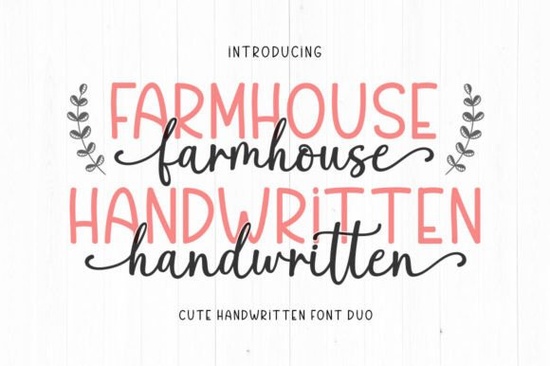
Designers, crafters, and small business owners often look for fonts that bring personality and charm to their projects. The Farmhouse Handwritten Font is a great choice for those who want a warm, inviting style that works across many applications. Whether you're creating social media posts, packaging, or branding materials, this font duo offers a smooth and elegant look that feels both modern and nostalgic.
The Farmhouse Handwritten Font comes as a duo, meaning it includes two complementary styles that pair well together. This makes it easy to create visual contrast without the need for multiple typefaces. The script style adds a personal touch, while the sans-serif version provides clarity and balance. Together, they can be used for everything from Instagram quotes to logo designs, making them versatile for a range of creative needs.
What Makes the Farmhouse Handwritten Font Unique?
This font duo stands out because of its natural, handcrafted appearance. Unlike rigid, mechanical typefaces, the Farmhouse Handwritten Font has a softness that feels more approachable. It’s perfect for projects that aim to convey a sense of warmth, authenticity, or nostalgia. Whether you’re designing for a boutique brand or creating custom greeting cards, this font can help you achieve a more personal and inviting look.
One of the key strengths of the Farmhouse Handwritten Font is its readability. Even though it has a handwritten feel, it doesn’t sacrifice clarity. This means it works well in both digital and print formats, making it a practical choice for a wide range of uses. You can use it for headings, body text, or even as part of a larger design layout.
How Can You Use the Farmhouse Handwritten Font?
The versatility of the Farmhouse Handwritten Font means it can be used in many different ways. Here are a few common applications:
- Branding: Use the font to create logos, business cards, or website headers that reflect a cozy, homey vibe.
- Social Media: Add a personal touch to your Instagram posts, Facebook banners, or Twitter graphics.
- Packaging: Apply the font to product labels, gift boxes, or promotional materials for a handmade feel.
- Quotes and Overlays: Use it to create eye-catching quote images or overlays for photos and videos.
Its flexibility also makes it a good fit for print-on-demand sellers who want to offer unique, customizable designs. With the right combination of styles, you can create something that feels both professional and personal.